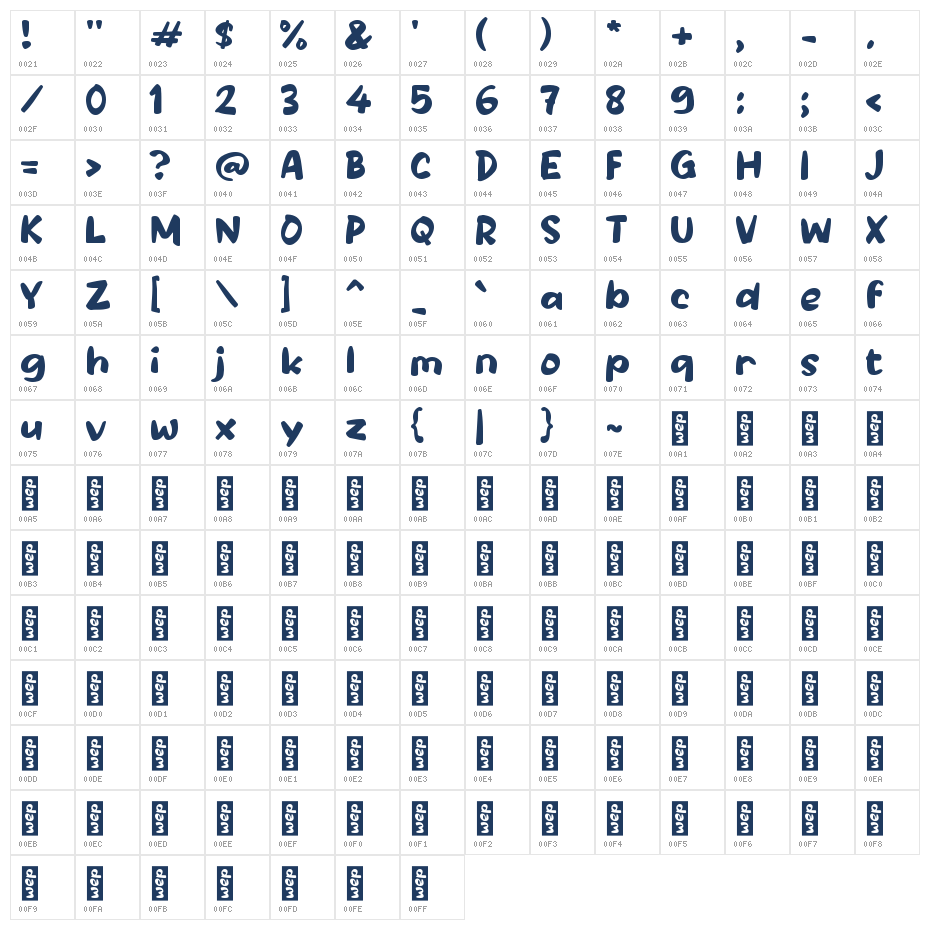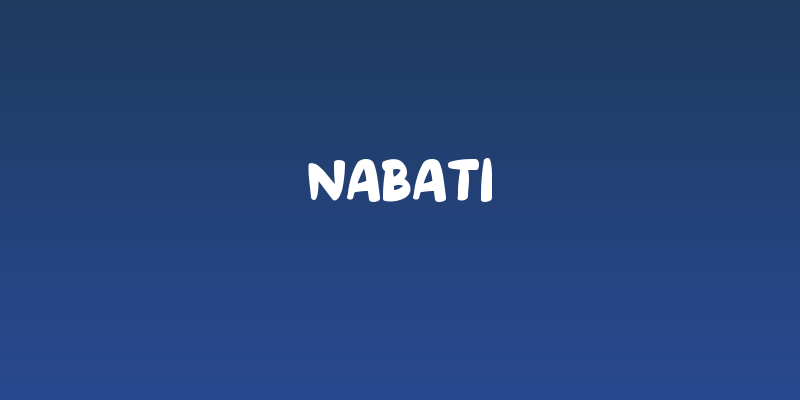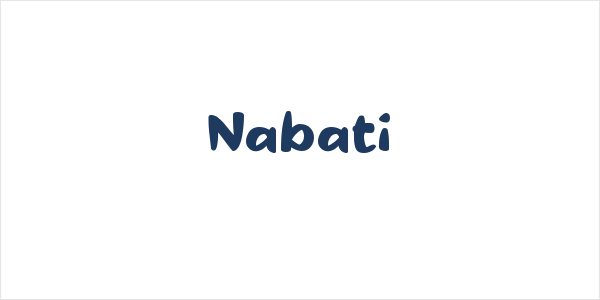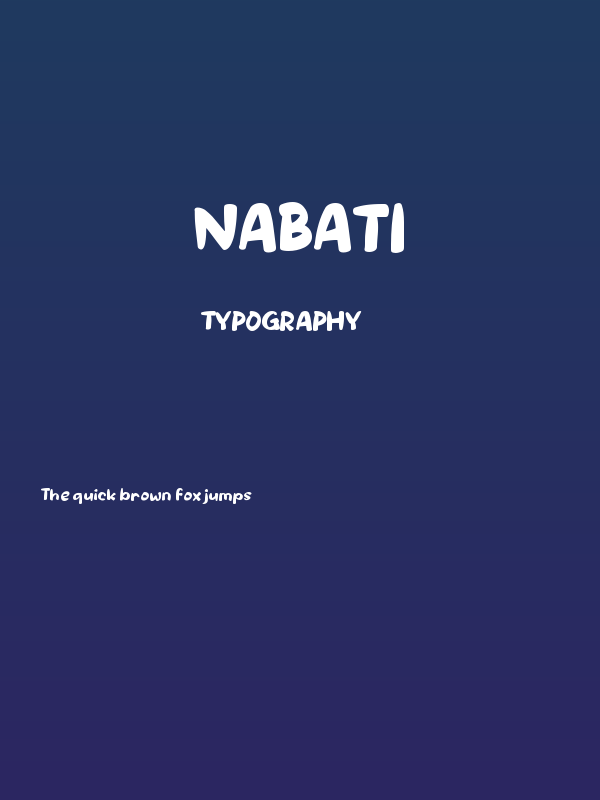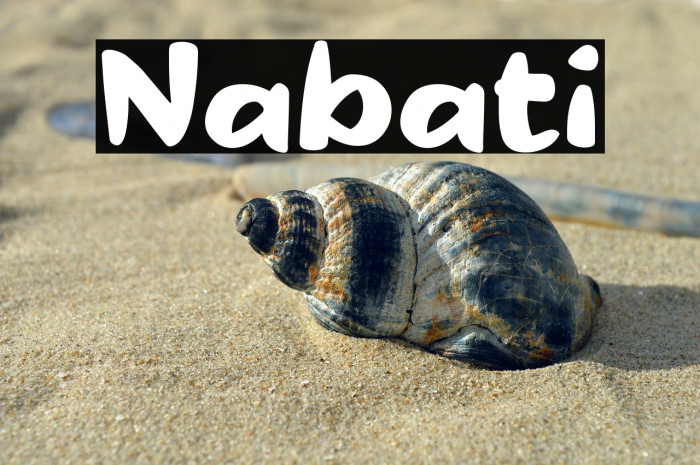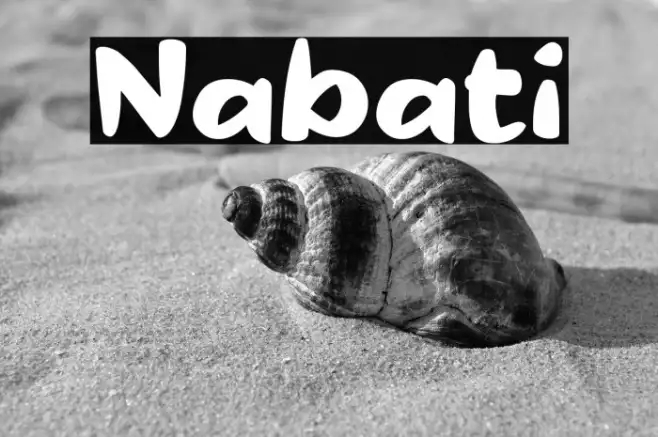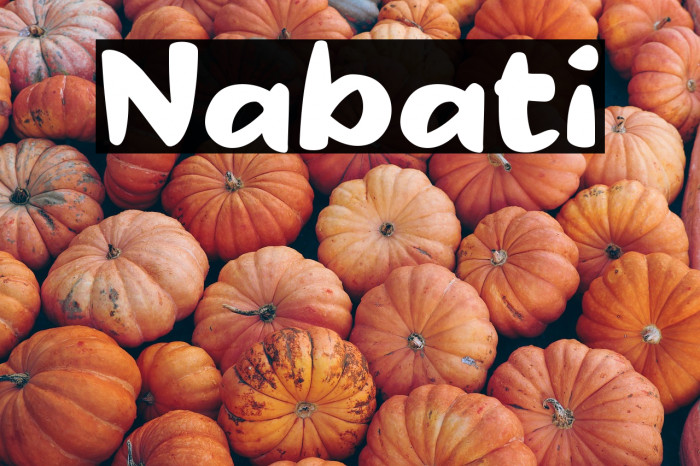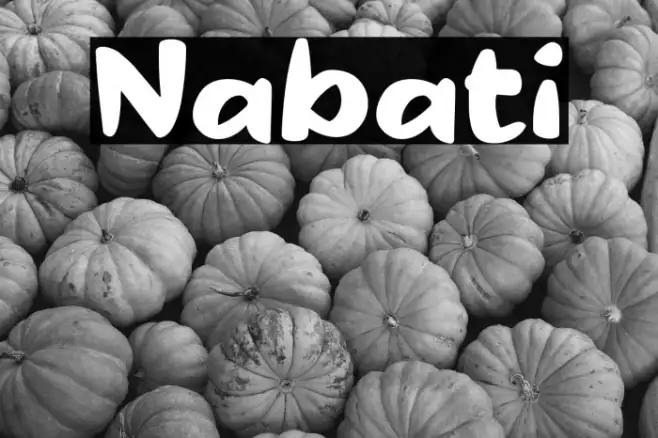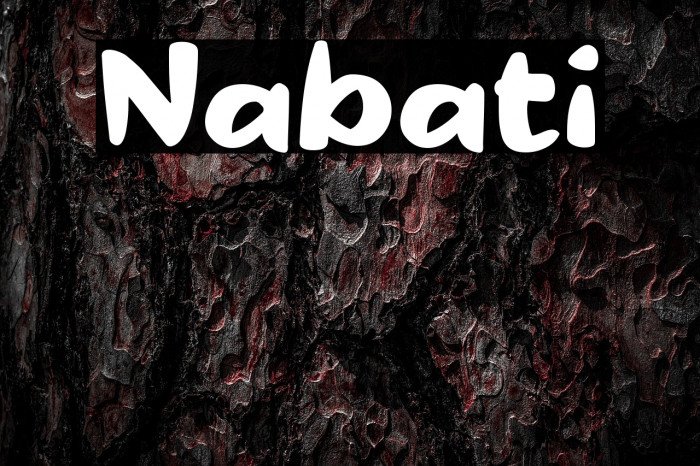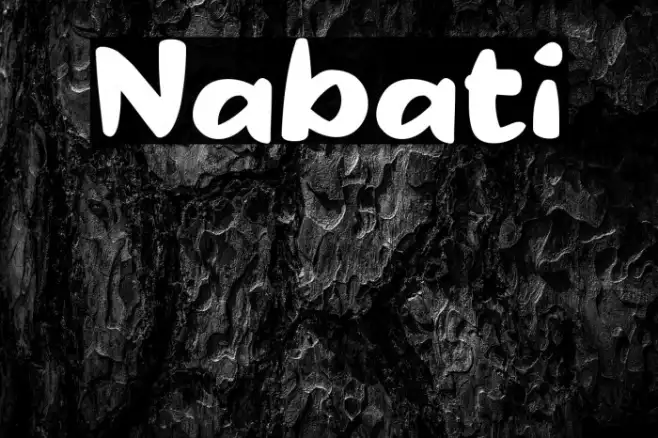
Nabati Font
Nabati Description
A playful, bold, rounded sans-serif font with a casual and friendly appearance.
| Overall Style | Casual, Friendly, Playful |
| Use Case | Headlines, Posters, Social media graphics |